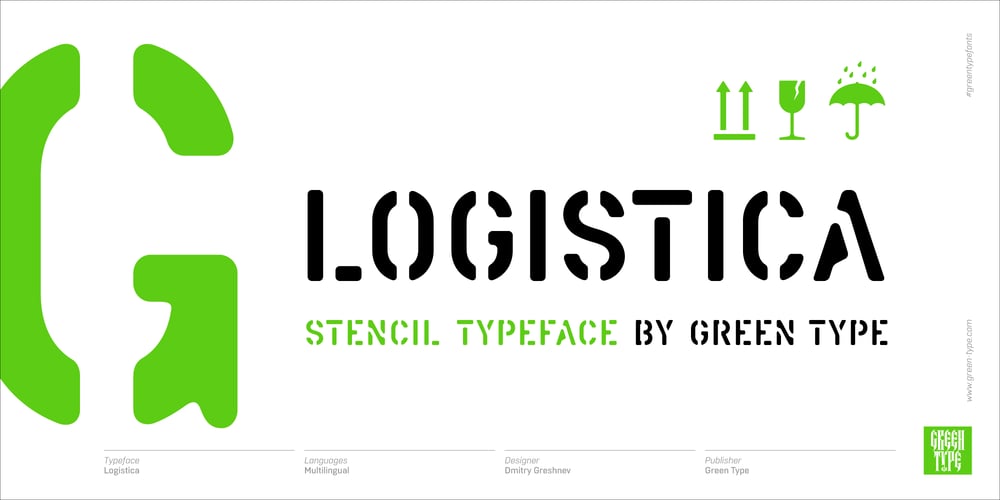
Logistica Font Family was designed by Dmitry Greshnev and published by Green Type. Logistica contains 2 styles and family package options. Logistica is a font based on industrial stencils. Supports Latin, Cyrillic and Greek. It also includes a set of several icons.